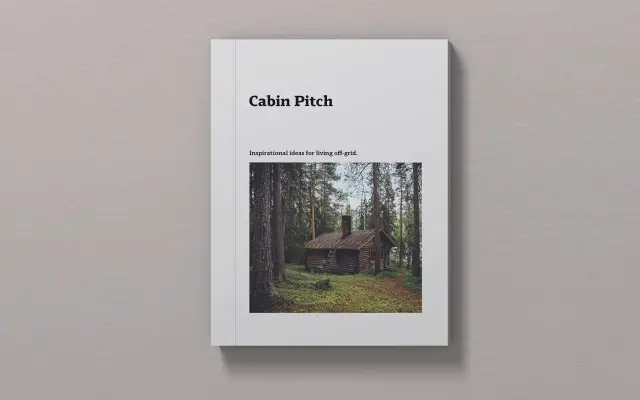
A serif companion to the Schar sans-serif family, sharing its fluid character while adding careful detailing for editorial use.
Drawn as a direct companion to the sans-serif Schar, Scharf transfers that family's proportions and personality into a serifed form intended to improve readability and support complex typographic hierarchies. Sixteen fonts span eight weights from Thin to Ultra with matching true italics, and each comes with over 950 characters including alternate lowercase a, e, g and y, eight numeral variants, true small caps with accented forms and discretionary ligatures. Language coverage extends to Western, Southern and Central European scripts as well as Vietnamese.
Scharf is a serif companion to the sans-serif Schar family, sharing its fluid and dynamic character while adding careful serif details for improved readability, placing it in the humanist serif tradition.